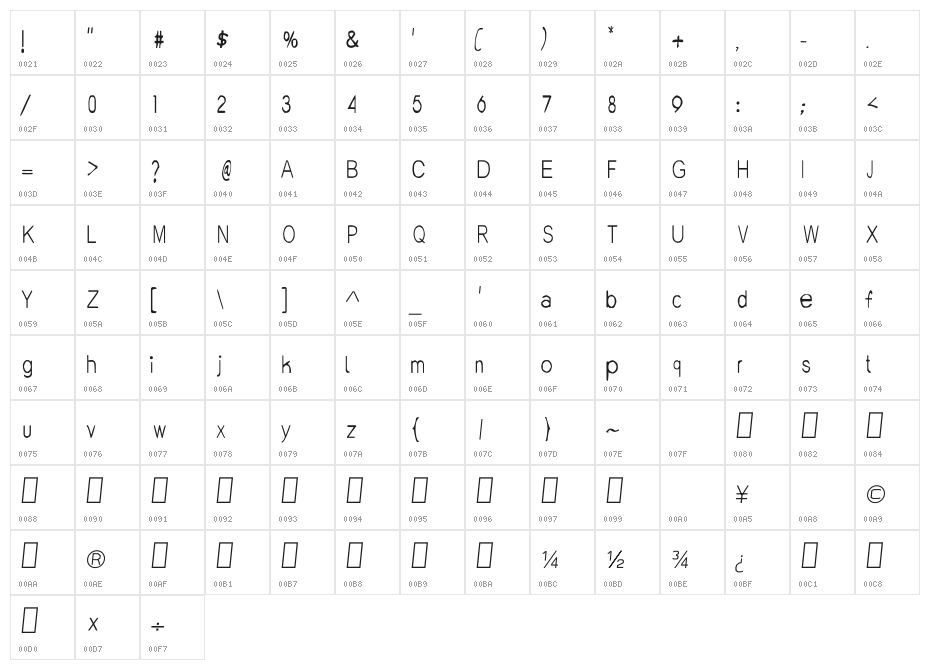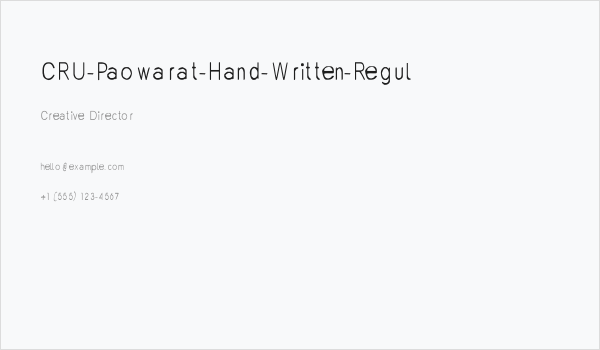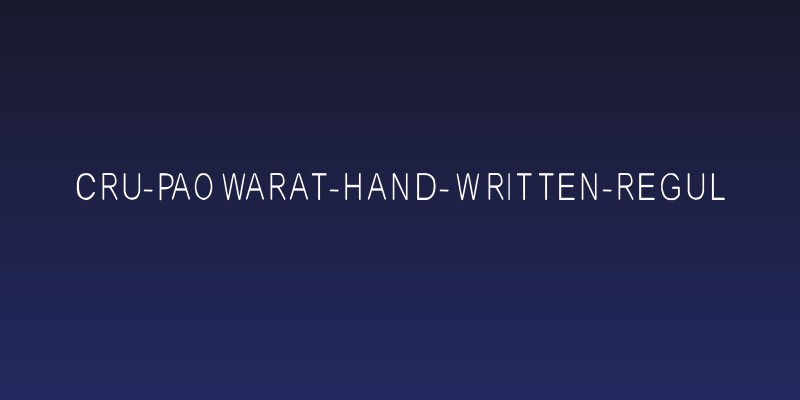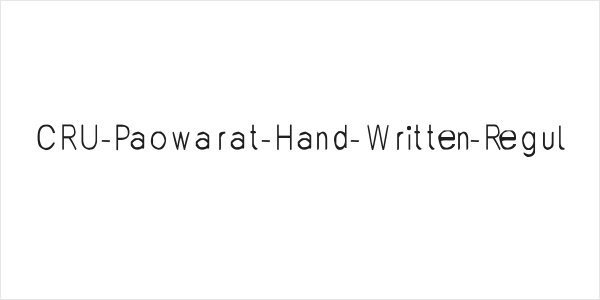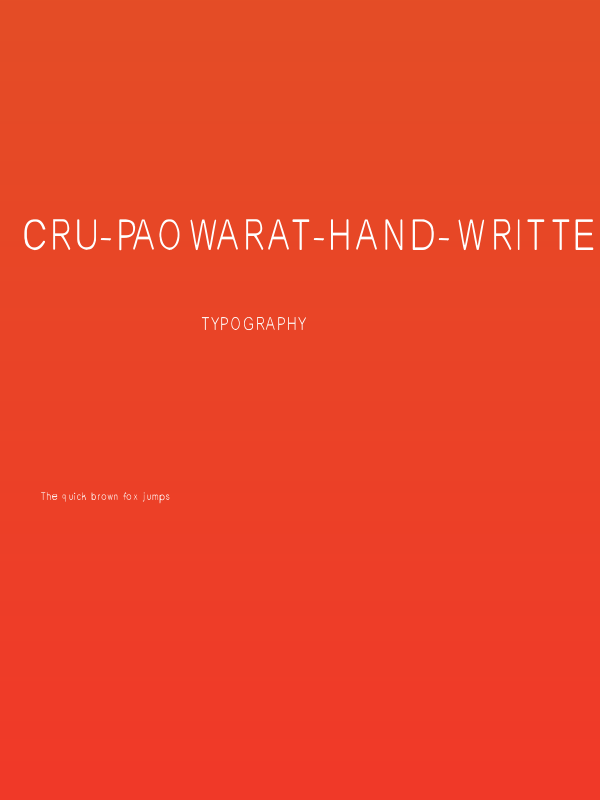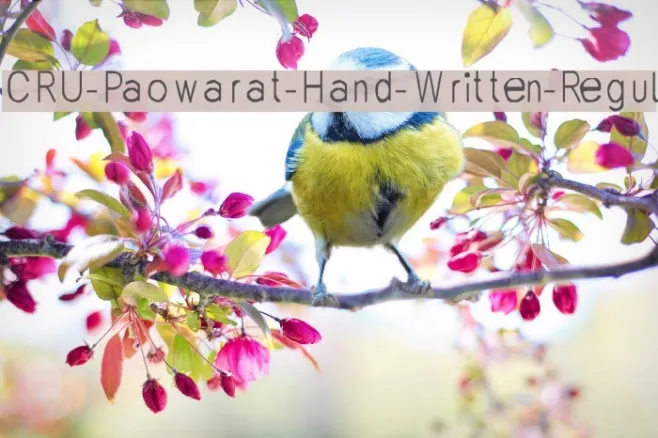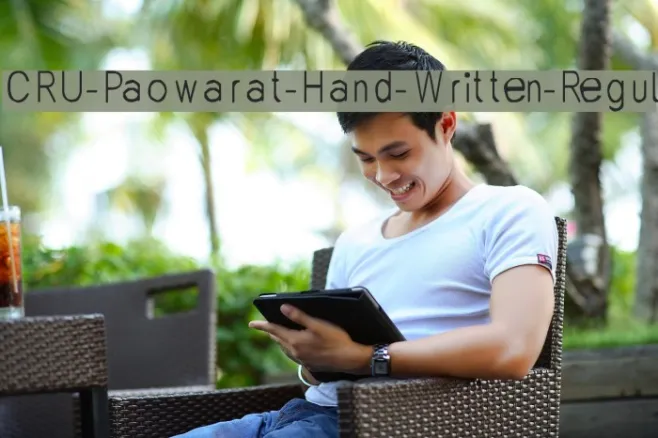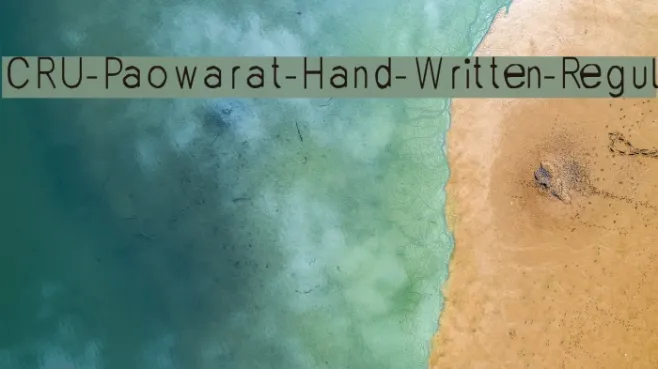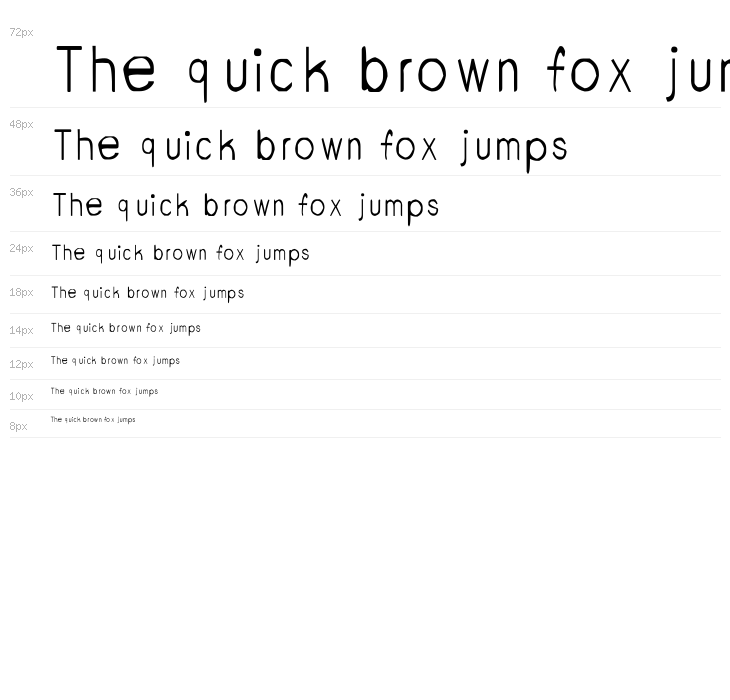
CRU-Paowarat-Hand-Written-Regul Font
CRU-Paowarat-Hand-Written-Regul Description
This font features a hand-drawn aesthetic, combining a casual and approachable style with a clean and modern appearance. The characters are slightly irregular, giving it a personal touch reminiscent of handwriting. The uppercase letters are bold and clear, while the lowercase letters maintain a consistent flow. The numerals are straightforward and easy to read, and the special characters are well-integrated, maintaining the overall hand-drawn feel. This font is versatile, suitable for projects that require a personal or informal touch without sacrificing readability.
| Overall Style | Modern, Casual |
| Proposed Projects | Ideal for personal branding, invitations, greeting cards, and creative projects that benefit from a handwritten touch. |